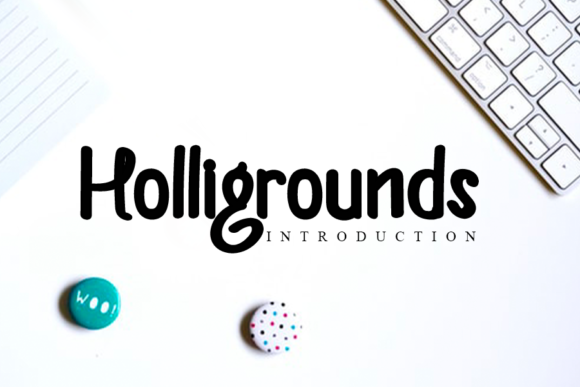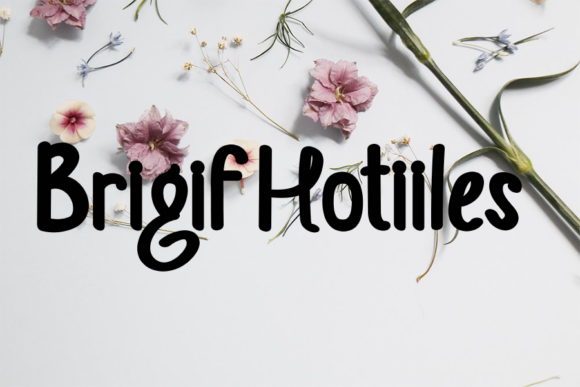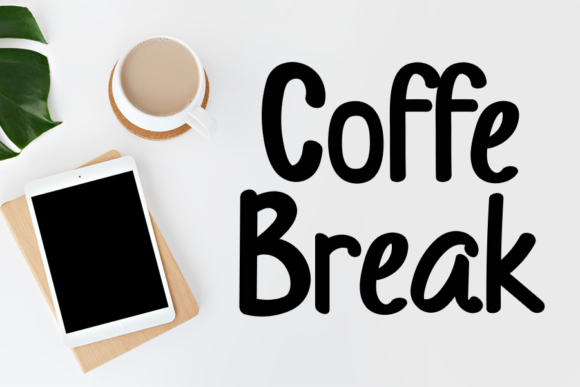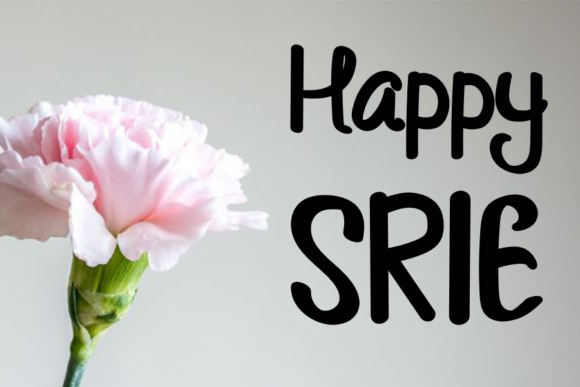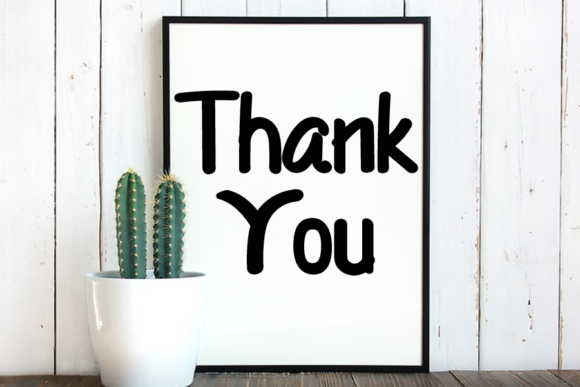
Helligrounds Font
About Helligrounds Font
Helligrounds is a cute and casual handwritten font with an incredibly friendly feel. Whether you’re looking for fonts for Instagram or calligraphy scripts for DIY projects, this font will turn any creative idea into a true piece of art!